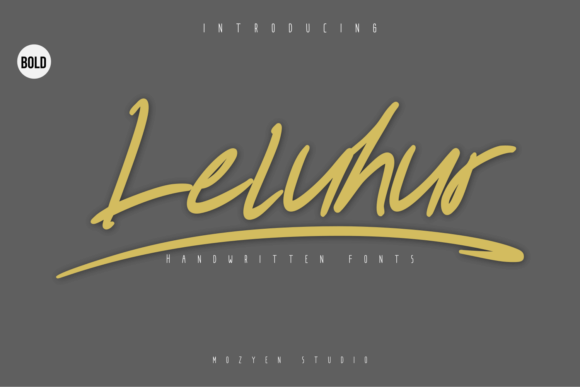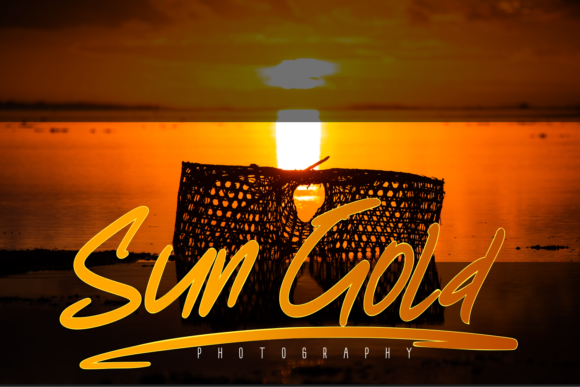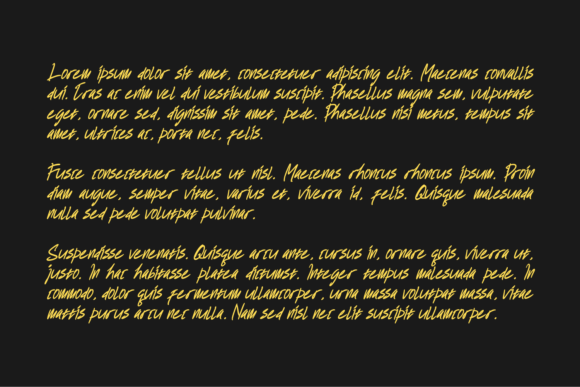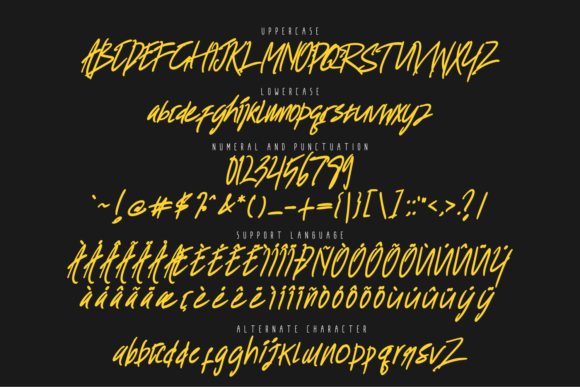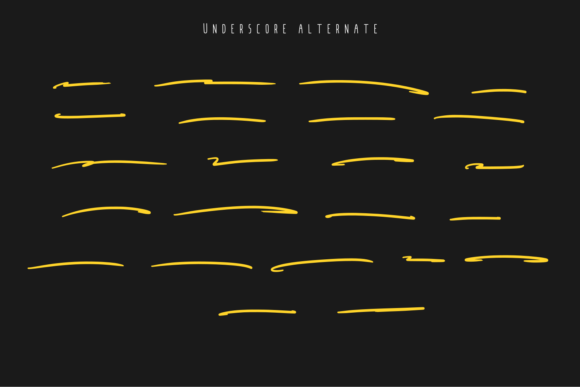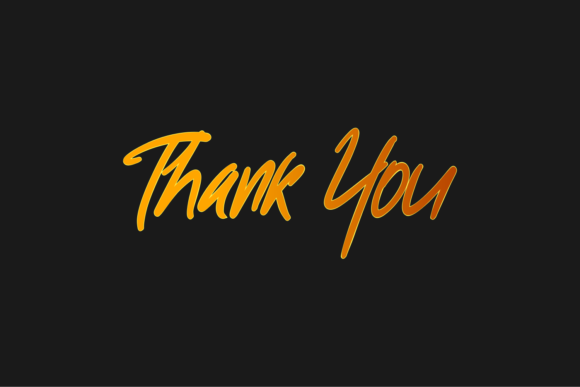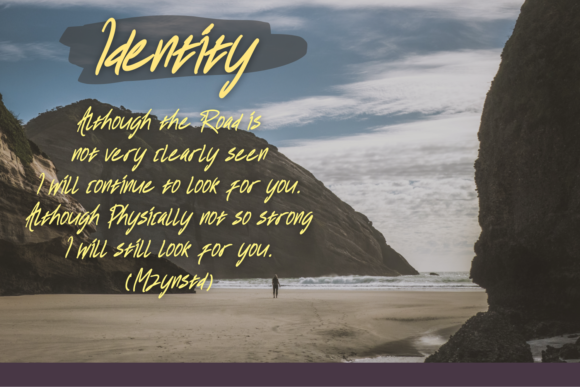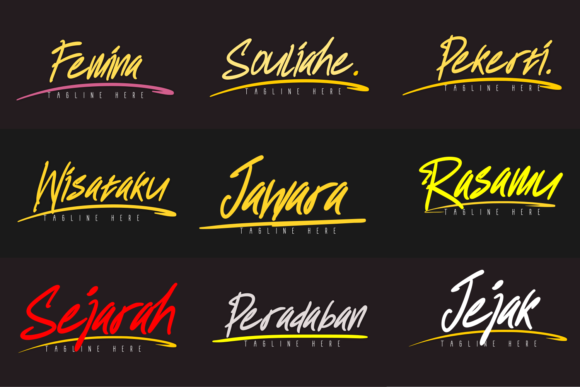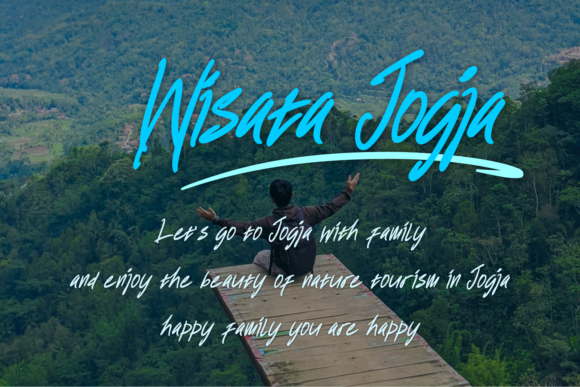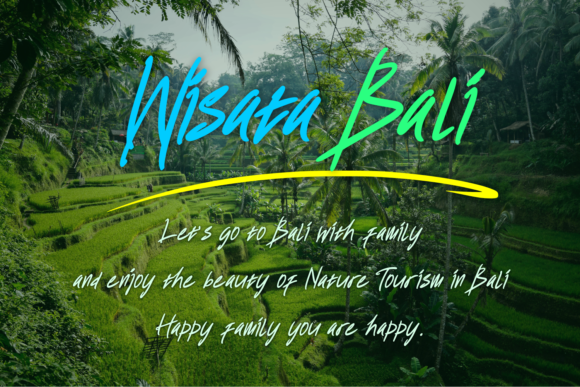
Leluhur Bold Font
About Leluhur Bold Font
Leluhur Bold is the bold version of Leluhur font. It feels sophisticated and features chunky and extended characters that will look particularly adept when used in logos, branding, packaging design, and much more.